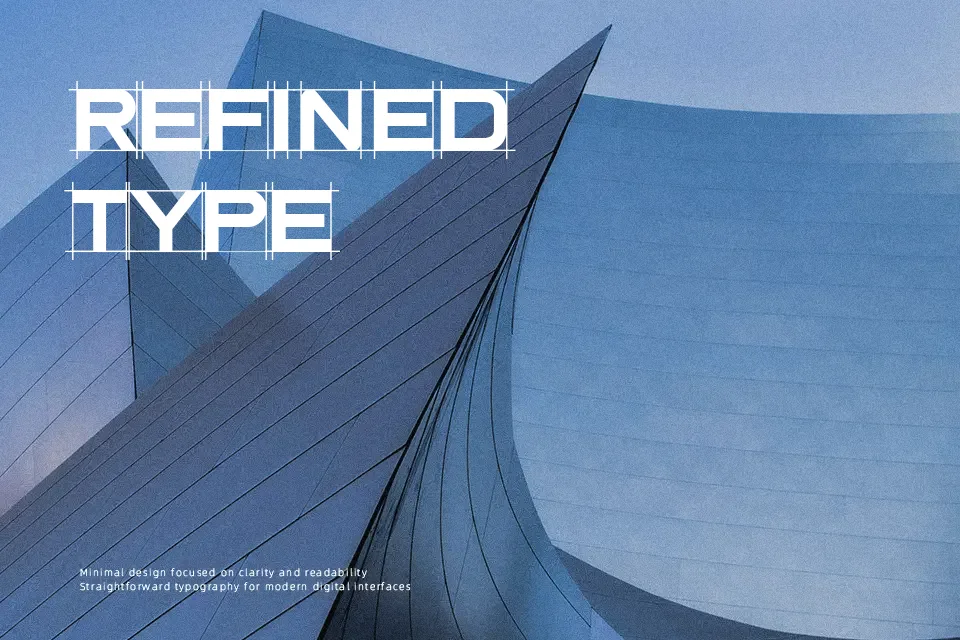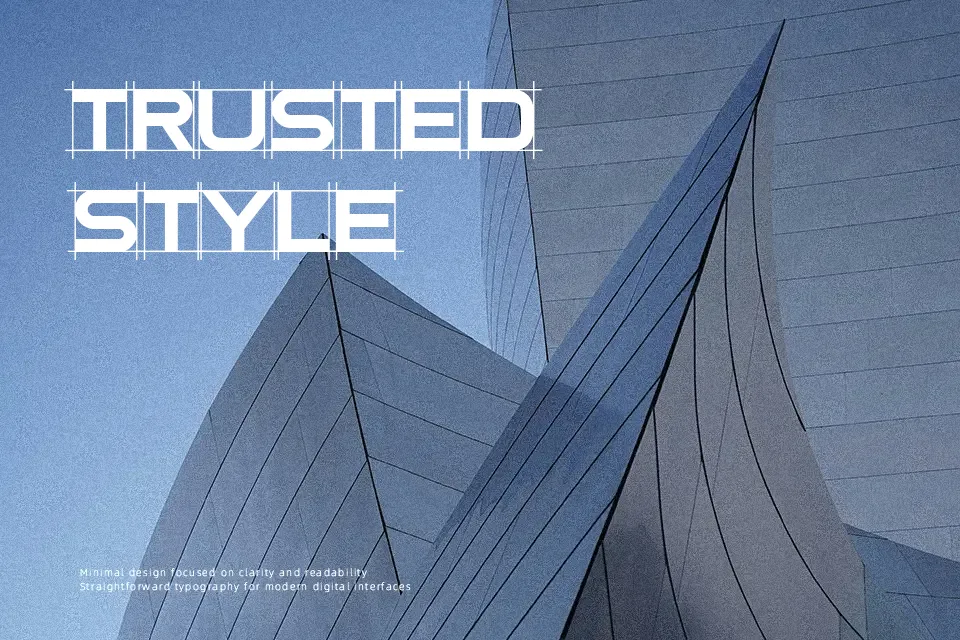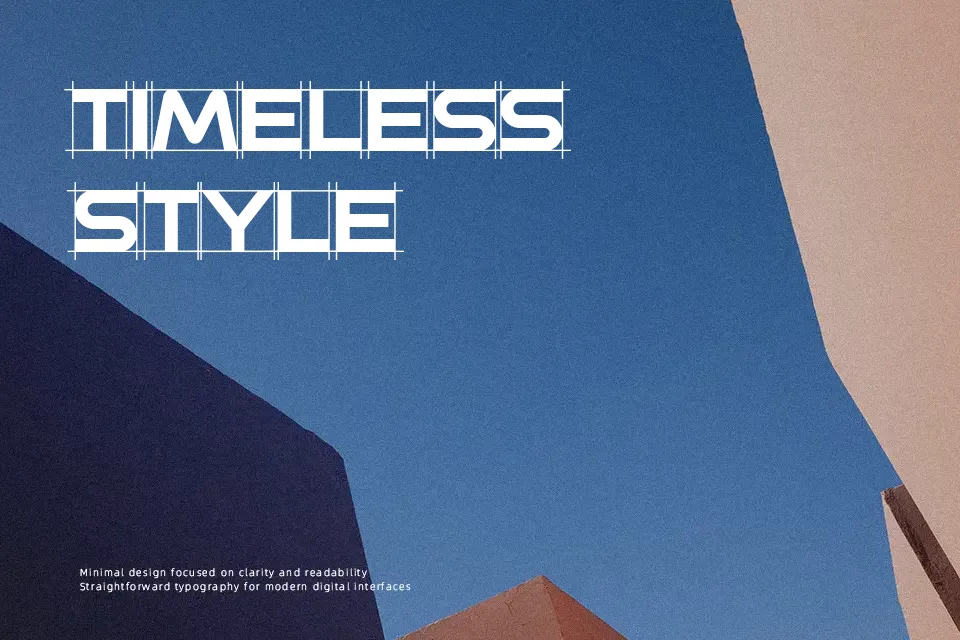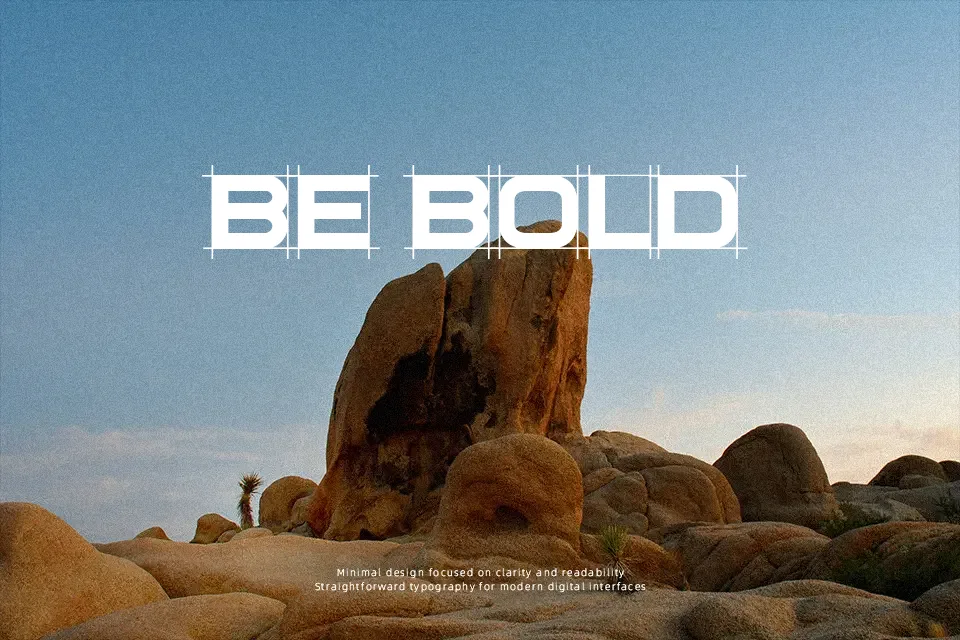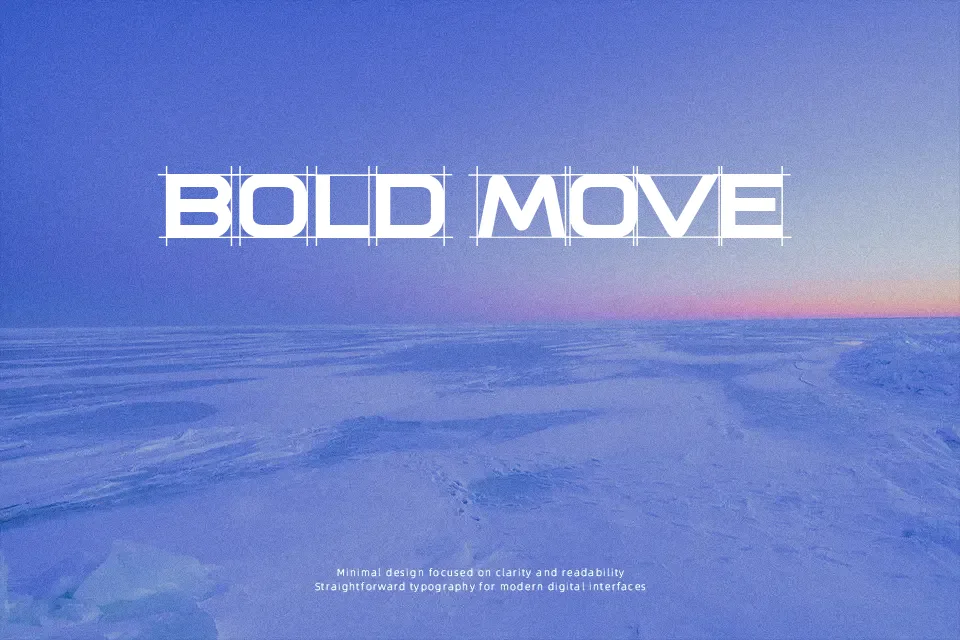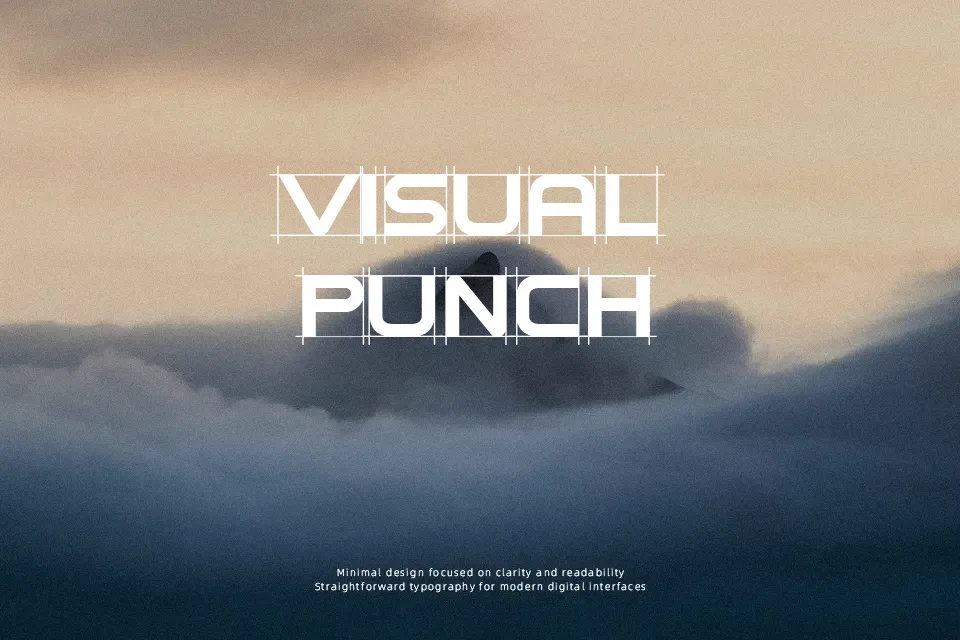
Product Design Font
Characterized by an expanded grid-based structure, the Product Design Font offers a distinctly modern and minimalist aesthetic. The letterforms utilize a consistent stroke weight and geometric proportions to establish a clean, technological rhythm across the baseline. Its wide, open spacing ensures excellent clarity when applied to large headlines and branding materials. The calculated geometry helps maintain an organized, structured appearance in futuristic design projects. However, the significantly expanded width reduces reading comfort when applied to lengthy paragraphs or dense body copy. Ultimately, the rigid structure and substantial footprint make it an impactful choice for tech packaging and modern interface headers, where immediate visual presence is required over extended continuous reading.
Best For: tech product packaging, futuristic logo design, modern interface headers, electronics branding
Not Ideal For: long paragraph text, dense editorial layouts, spreadsheet data, small interface labels
Perfect for logo, packaging, and poster, with a clean and display style.